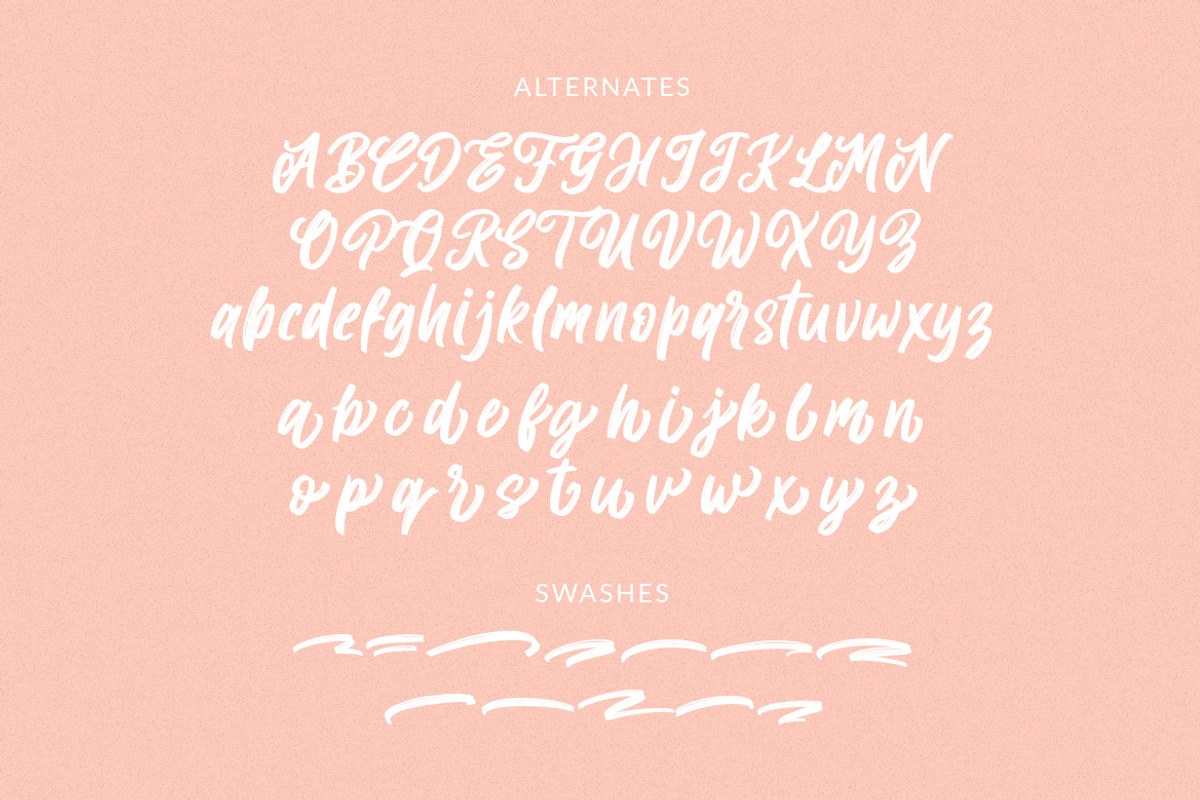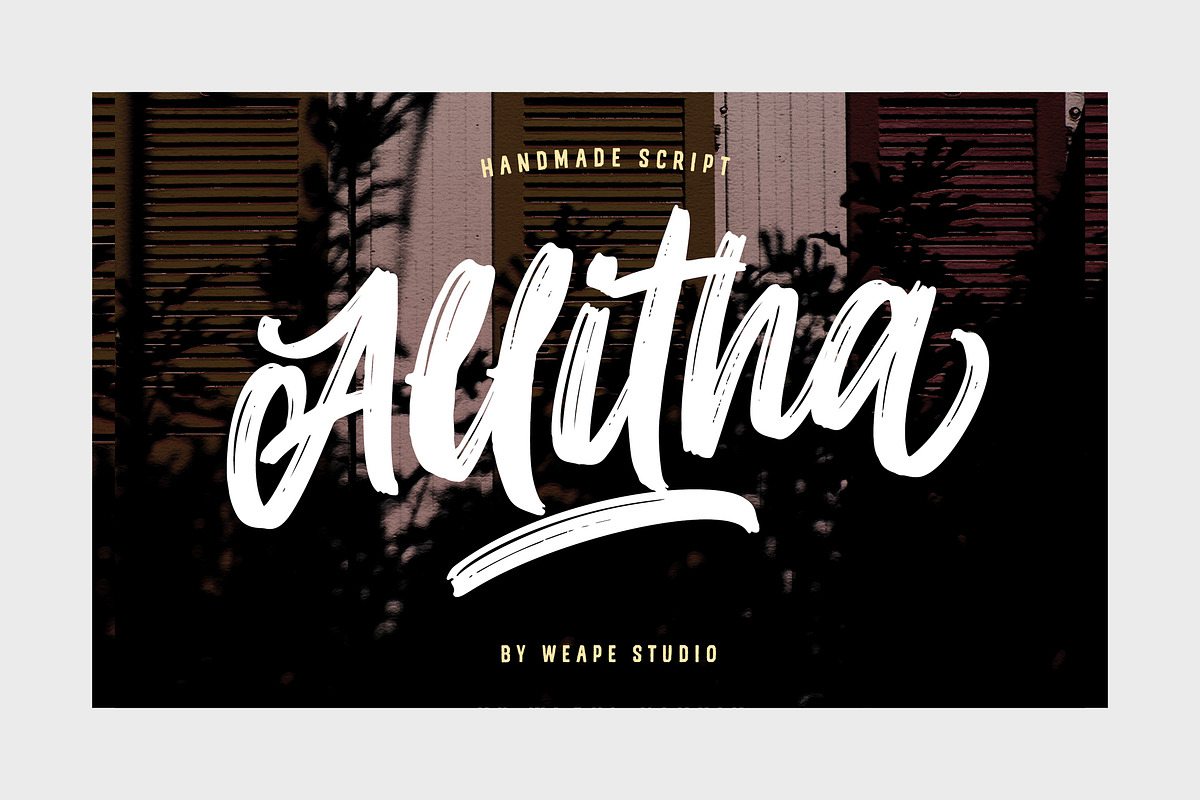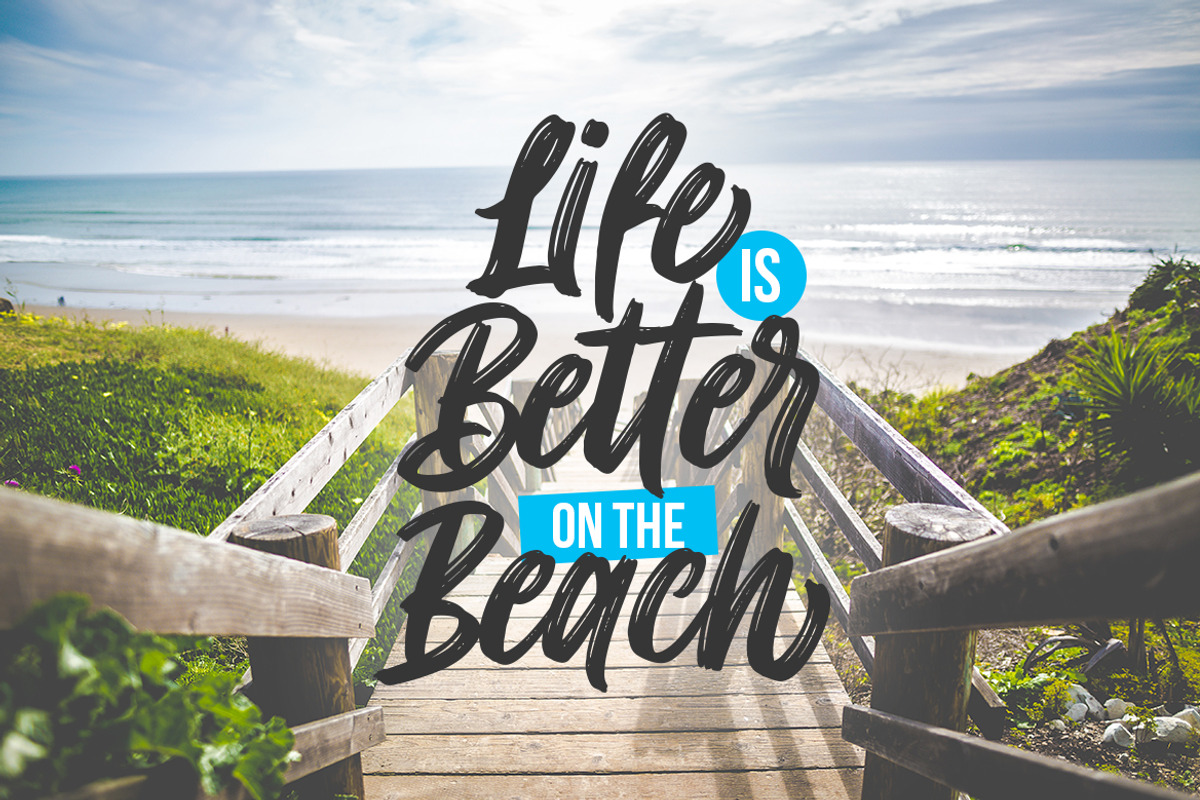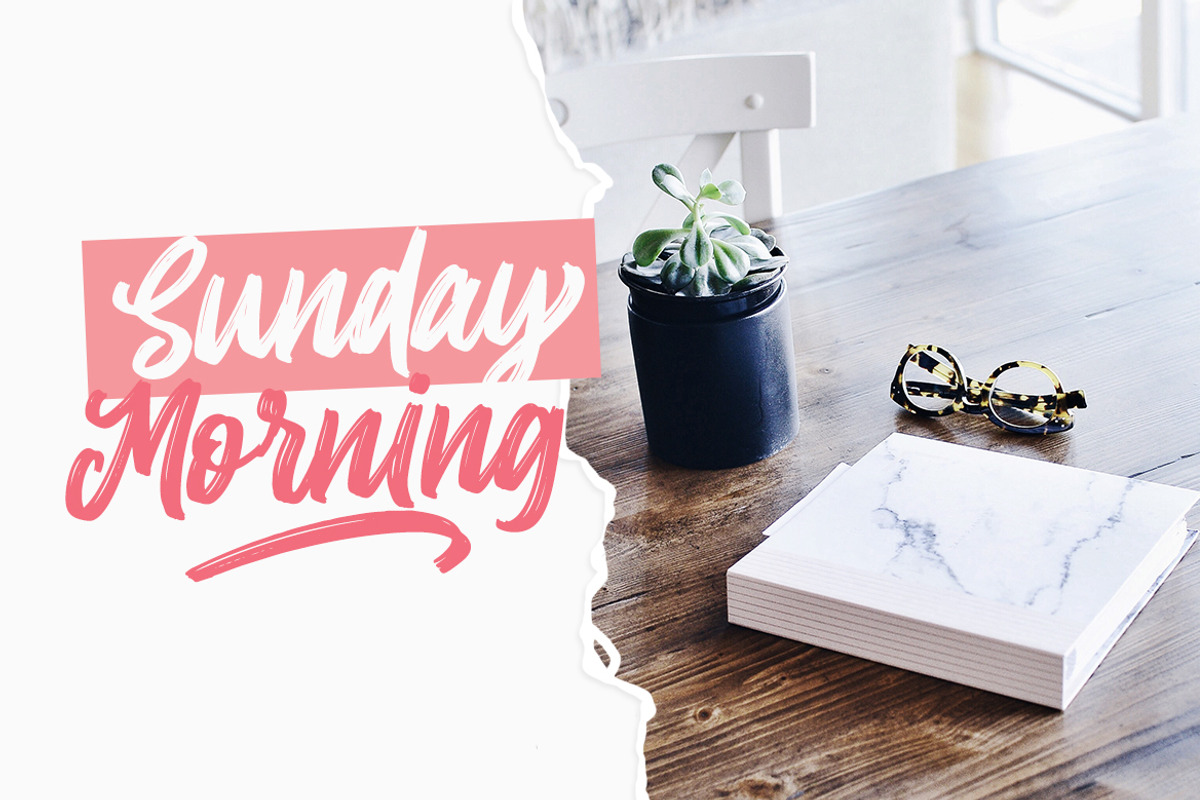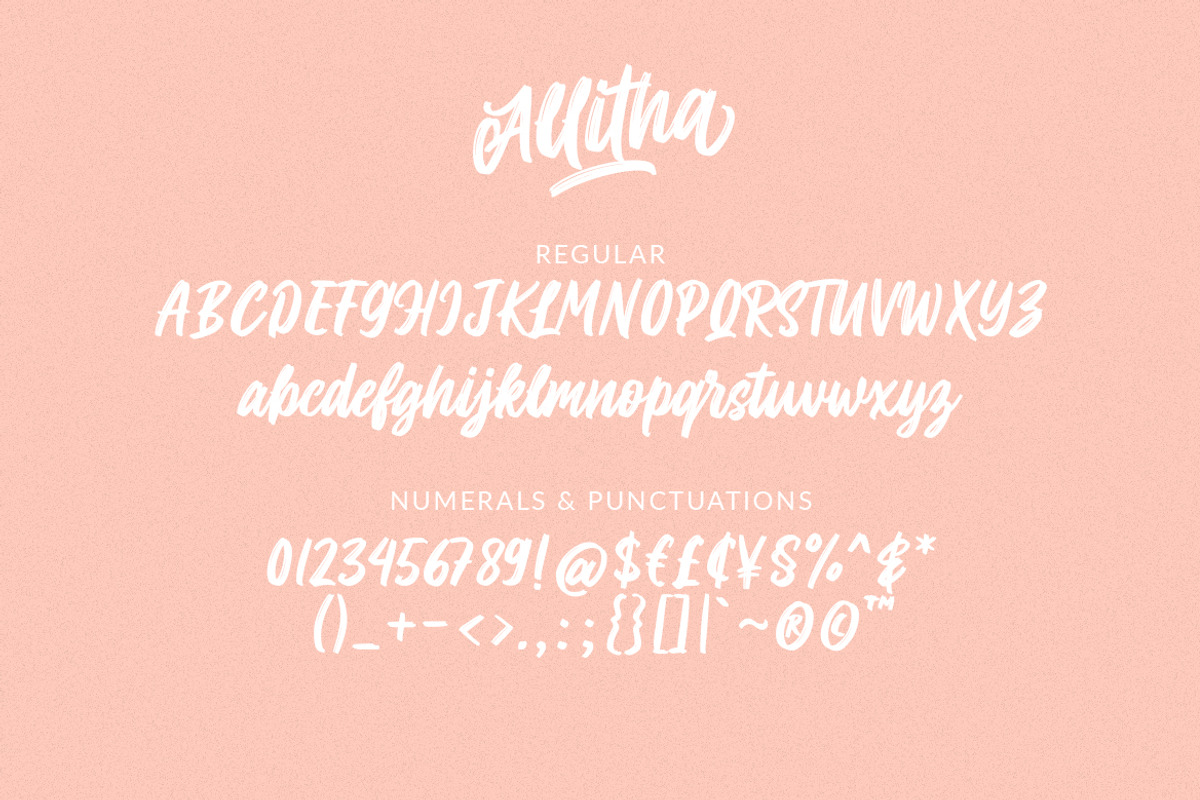
Allitha Handmade Script
Introducing Allitha handmade script font, with natural rough dry brush strokes, and the stroke of hand quickly. You can use and enjoy Allitha, for promotional material and anything.
And this font perfect for signature, handwritten quotes, wedding, product packaging, fashion, photography, merchandise, branding projects, poster, social media, book cover, greeting cards, and advertising. You can create more easily with alternatives to each letter and make it as if you wrote it yourself.